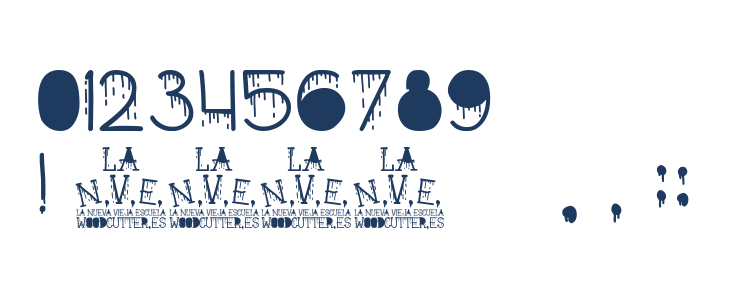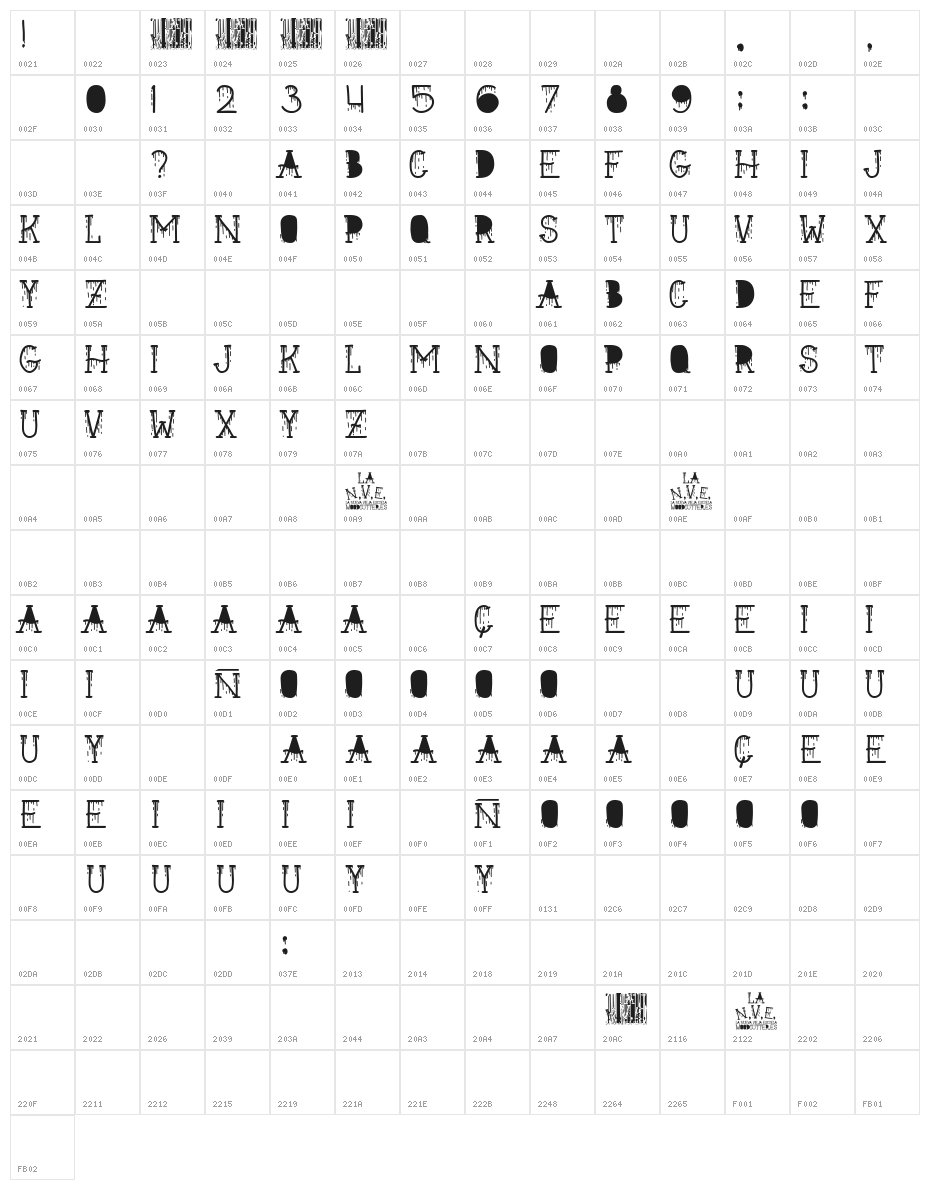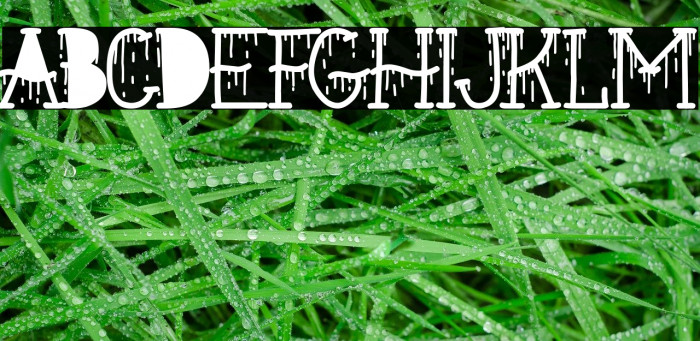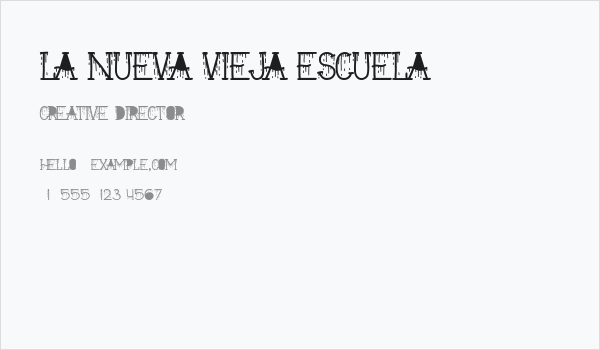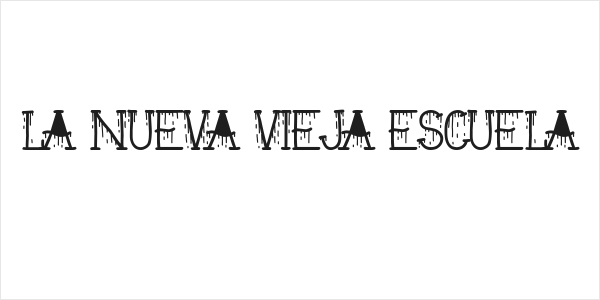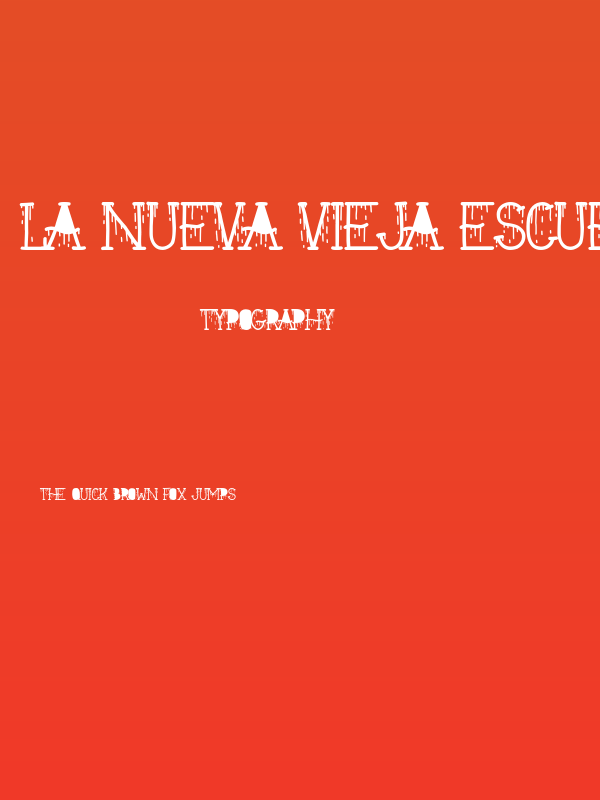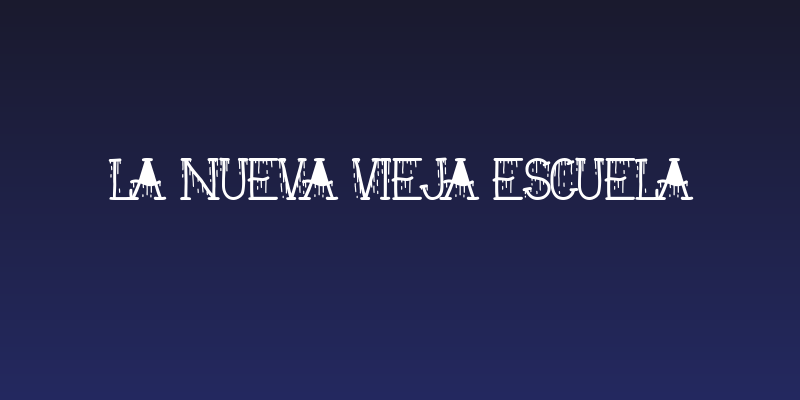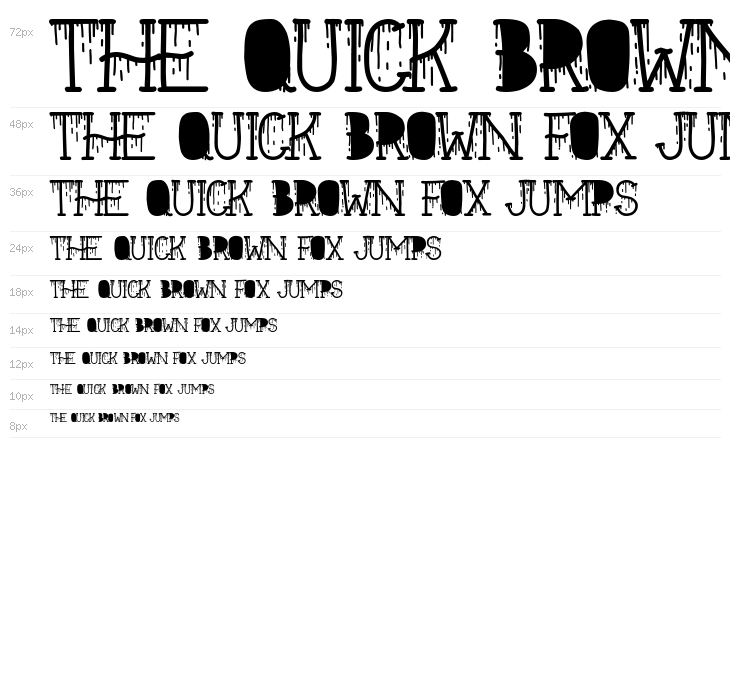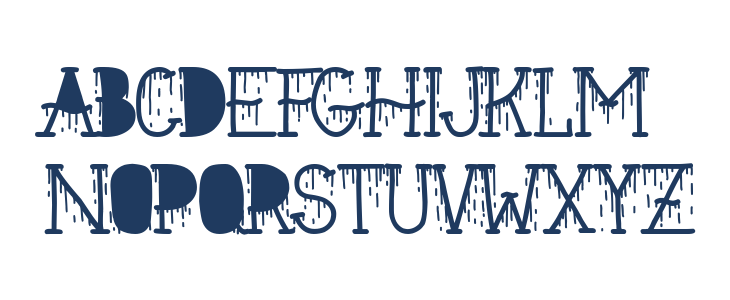
La Nueva Vieja Escuela Font
✎ Liquid
| Progetti proposti | Ideal for horror-themed posters, Halloween invitations, edgy branding, and music album covers. |